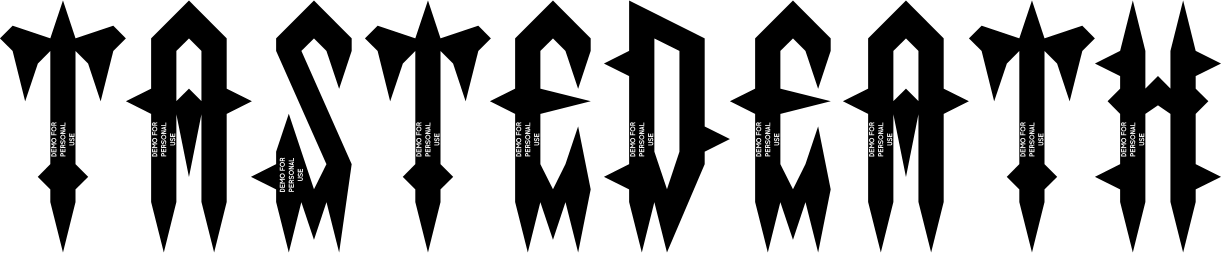
Taste Death Font
Get ready for Taste Death font, one of the scariest ones in the Death Metal font collection. You can use this brutal and gothic font in tattoo and scary Halloween poster designs. If you look at the lines of each of the characters, you can see that they are made up of very sharp needles.
Remember this font does not have lowercase letters and numbers.